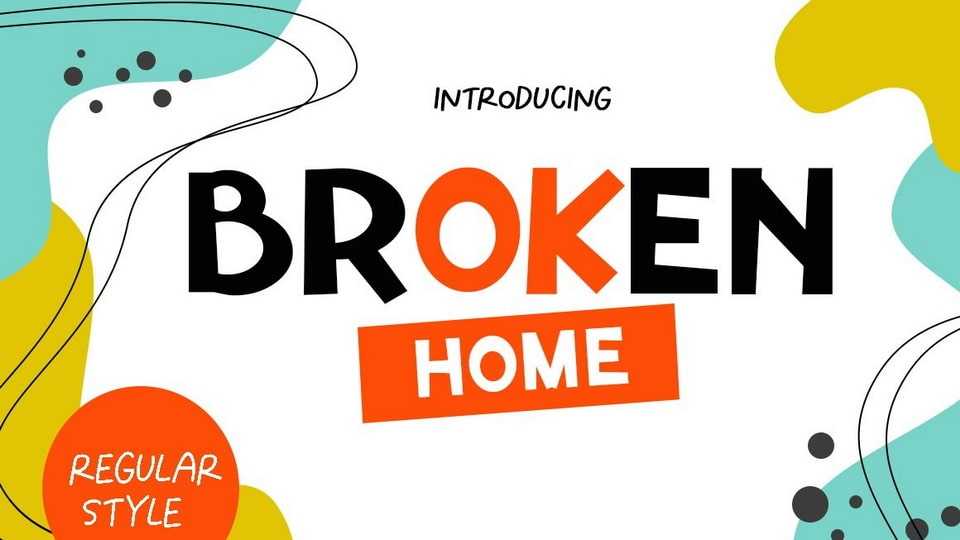
Download Broken Home font, a cute handwritten typeface with display letters. Broken Home font is perfect for shirts, mugs, signs, children’s designs, headings, blogs, logos, brandings, invitations, and more.
Designer: Wildan Type